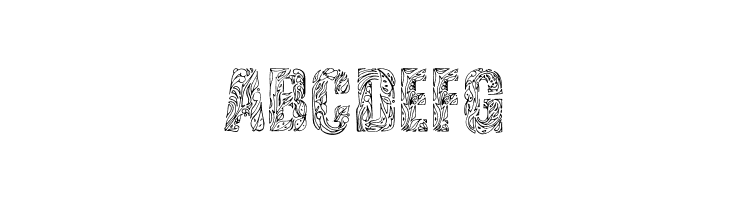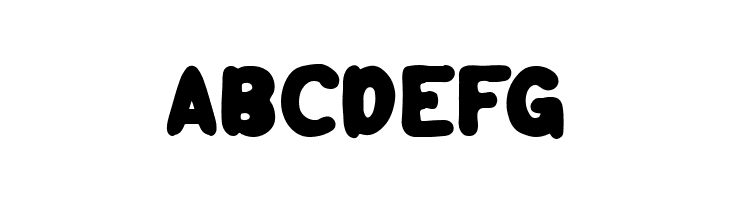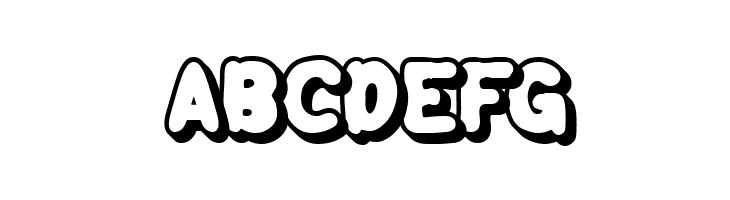
Gardenzi - Demi Font
Font by
danny91194
A modern, clean font with a balanced and elegant structure.
Ginger Biscuit - Personal Use Font
Font by Attype Studio
A playful, bold font with rounded, bubbly characters.
Ginger Biscuit Extrude - PUL Font
Font by Attype Studio
A playful, bold font with a 3D extruded effect and rounded, cartoonish style.
Spirello Font
Font by
danny91194
A playful and whimsical font with spiral and curly elements.
The Nigel FontRegular Font
Font by Nigel Babb
A whimsical, decorative font with artistic embellishments and a hand-drawn feel.
Vinegraphy Font
Font by Aslam Othman
A decorative font with intricate vine-like patterns within each character.